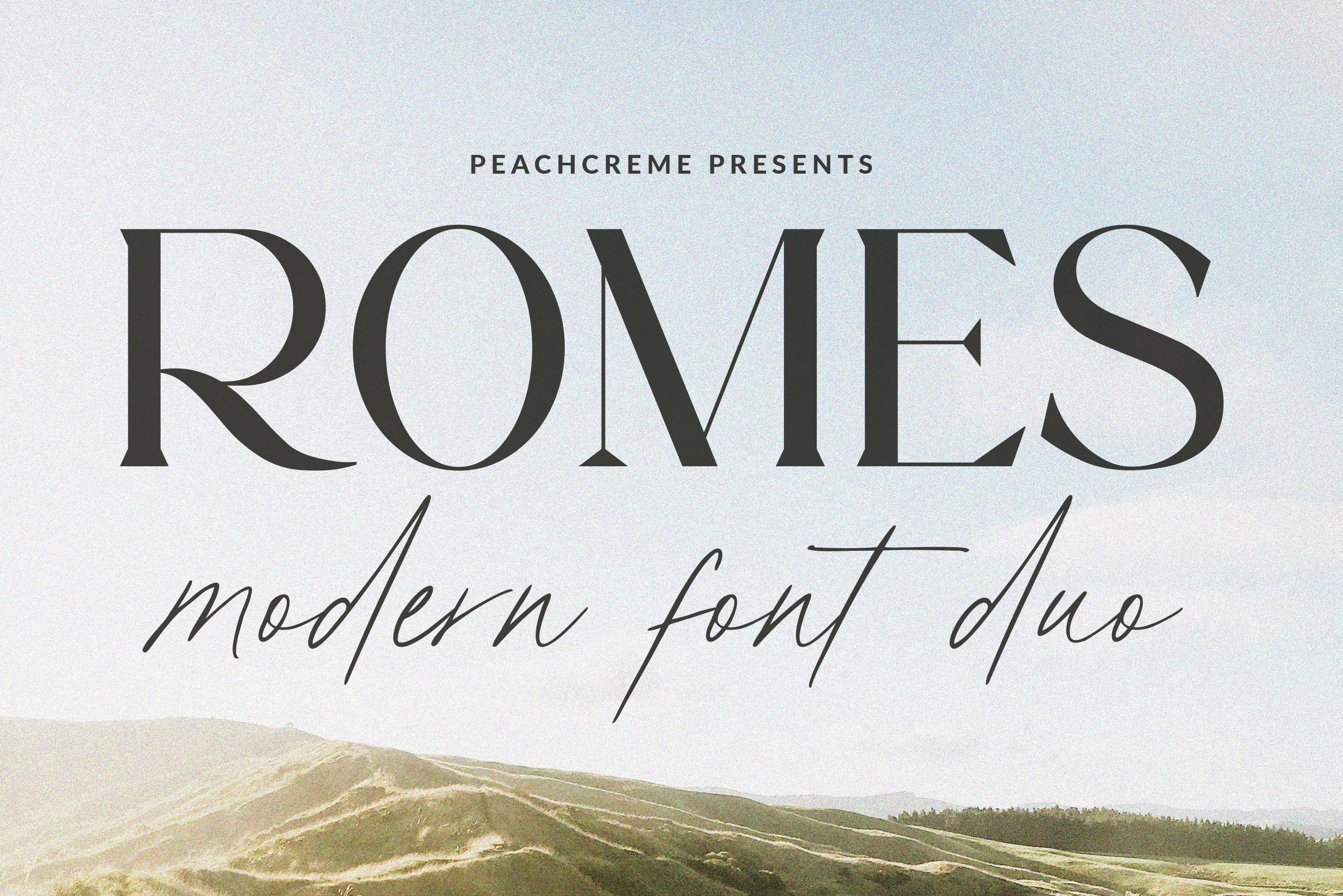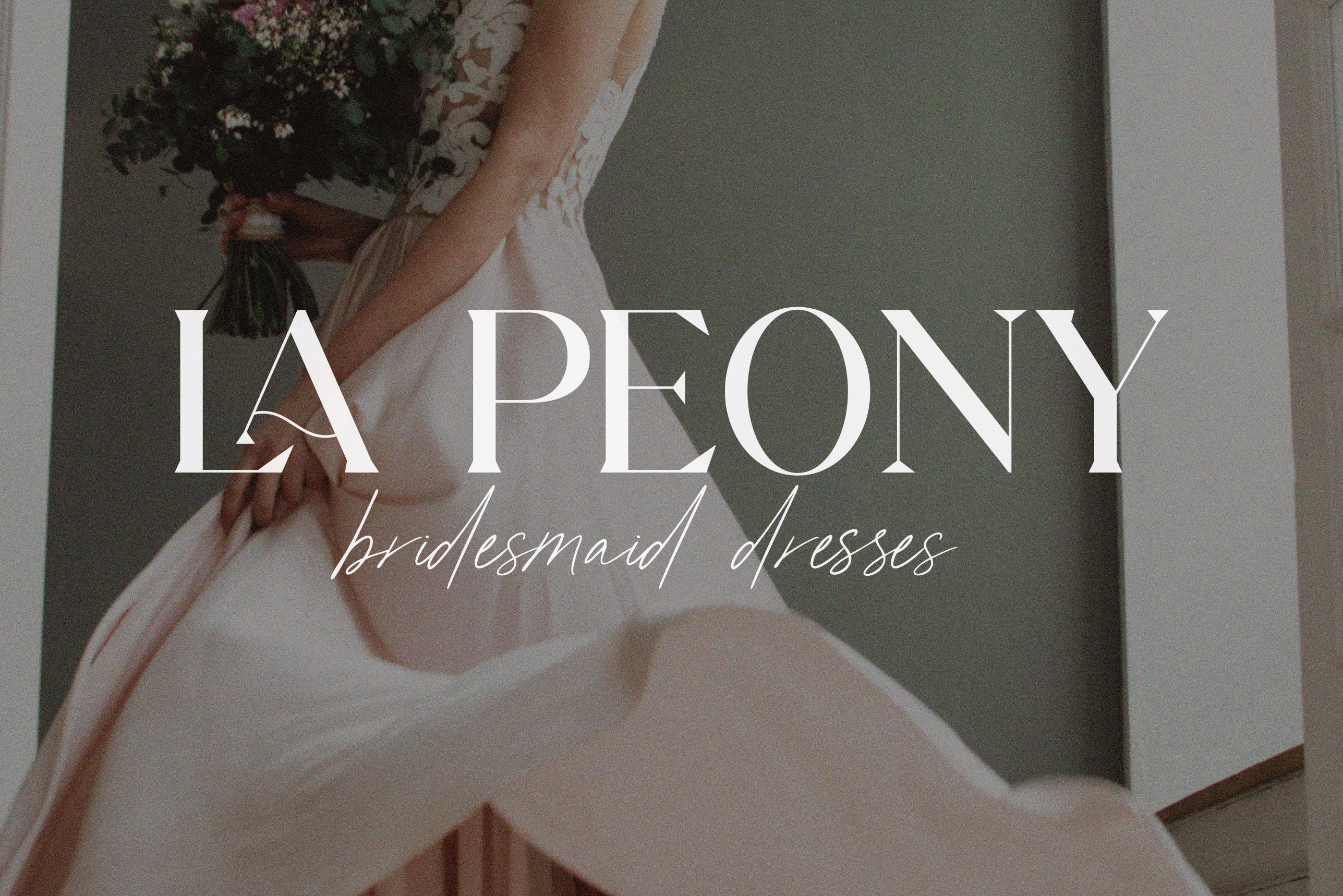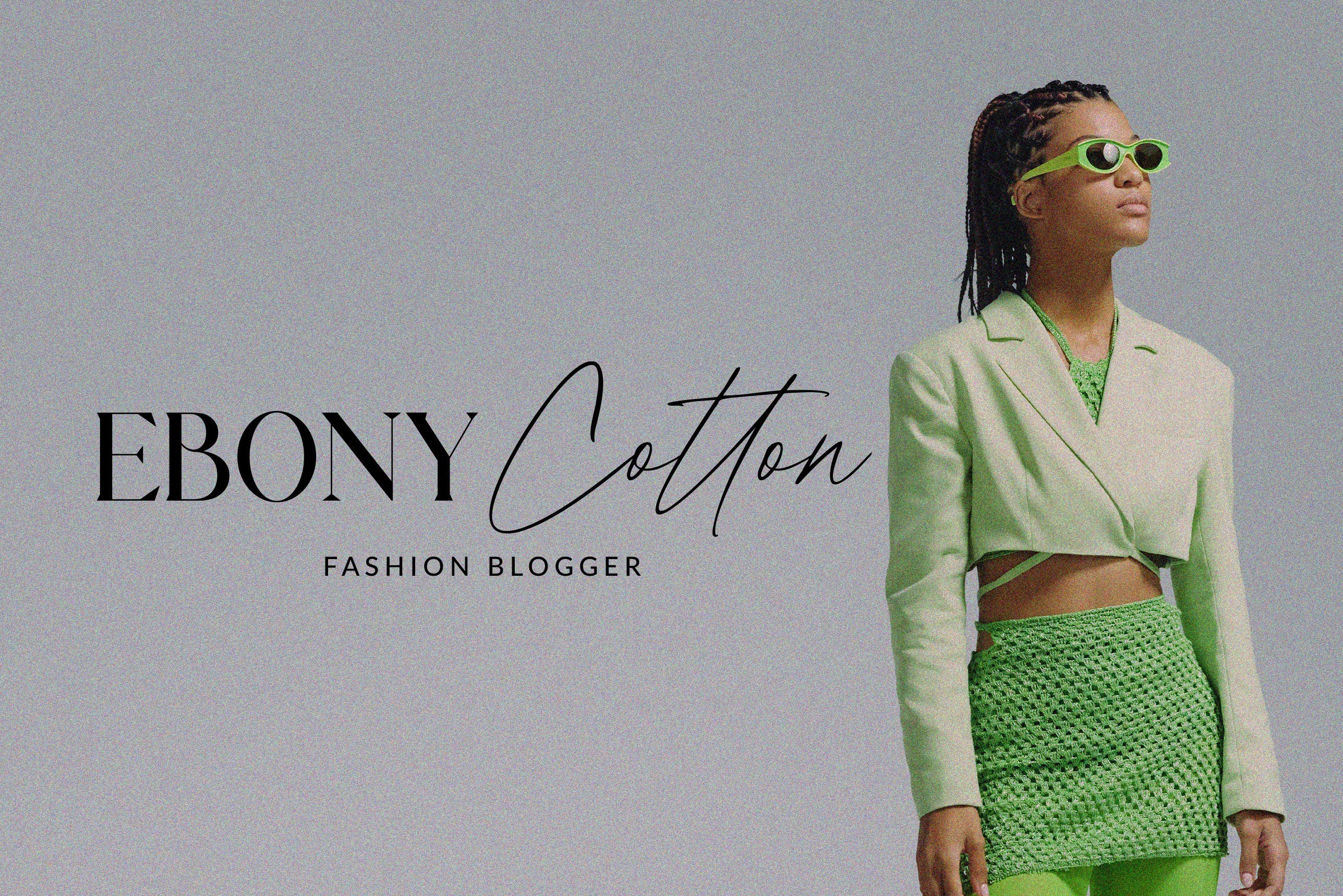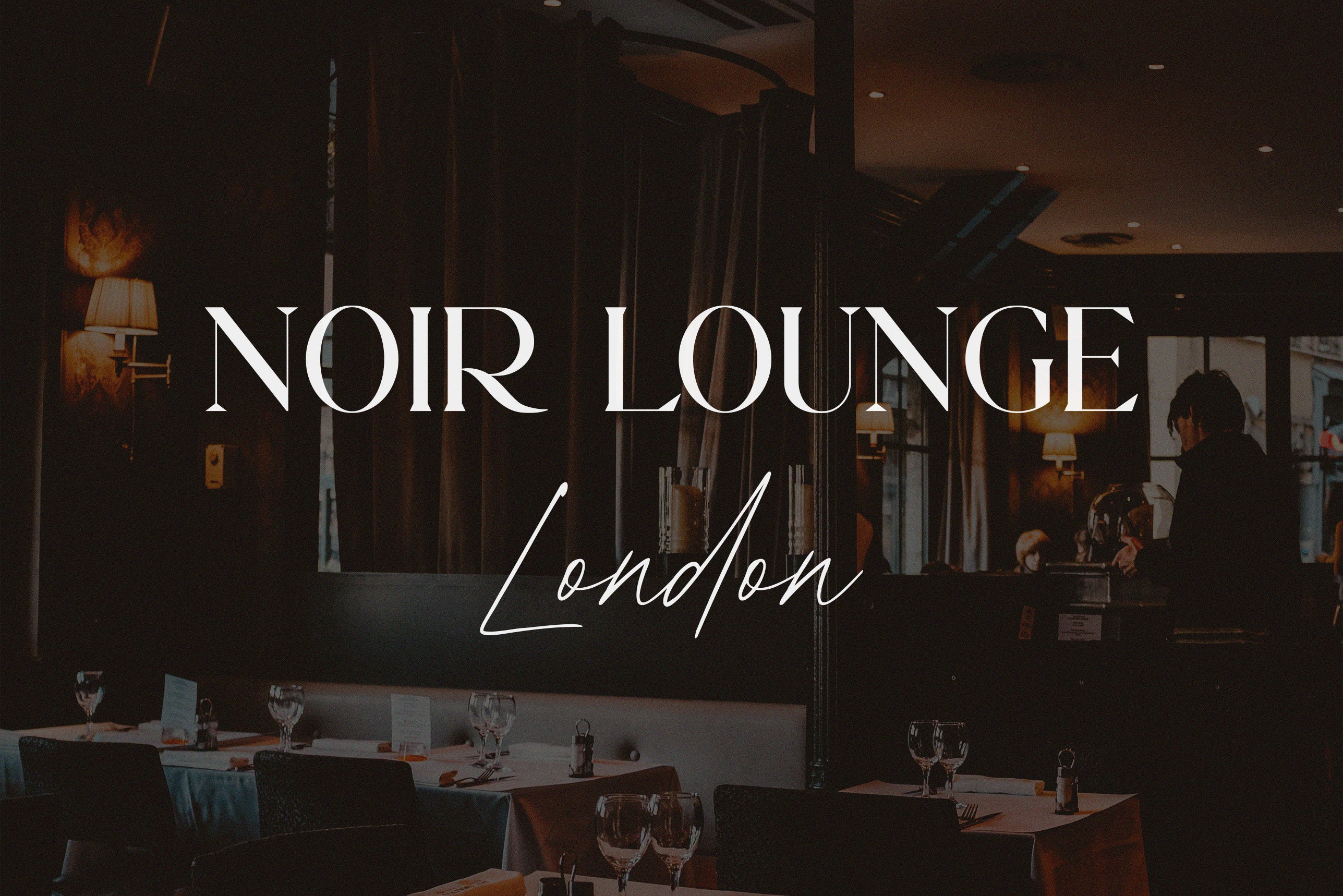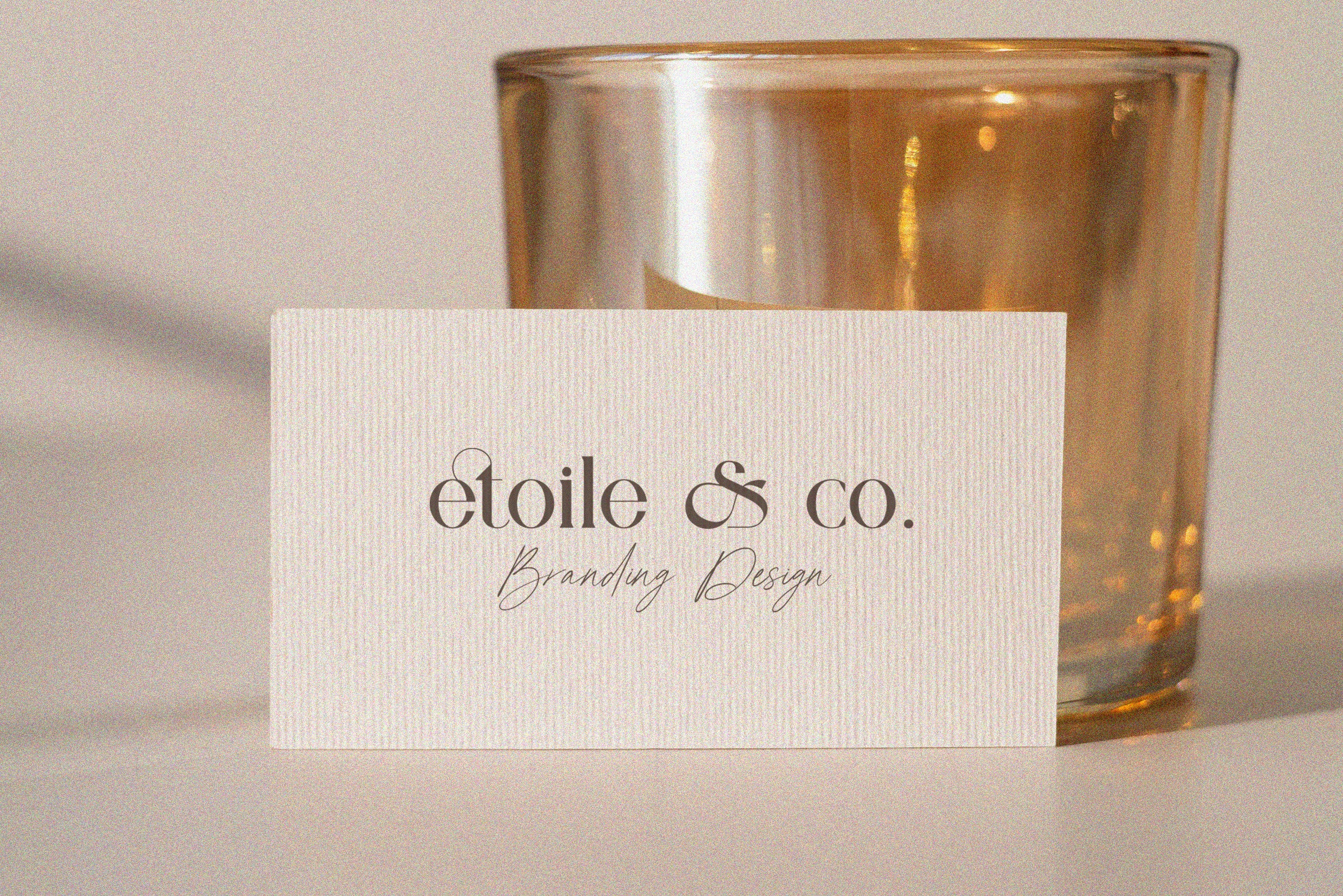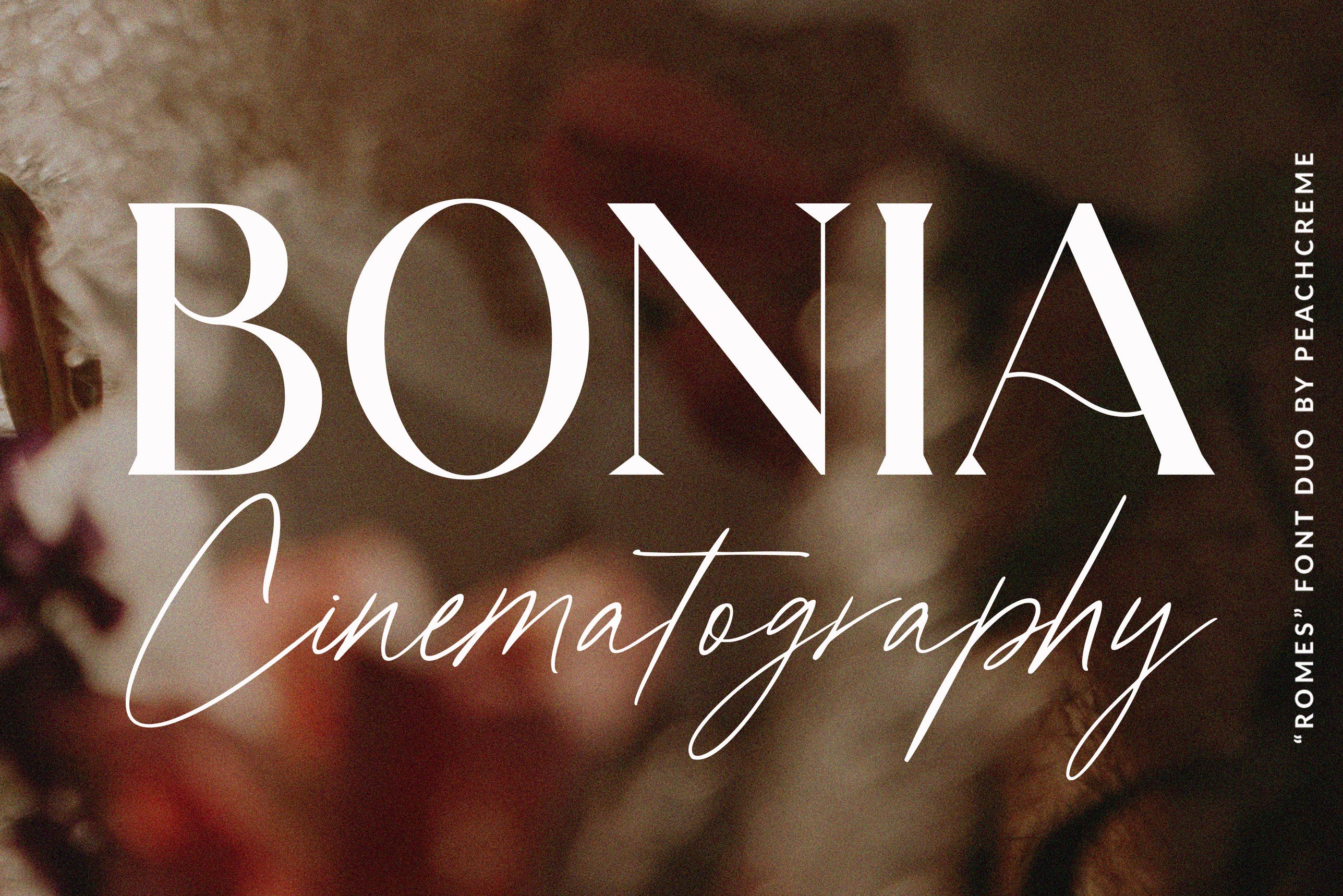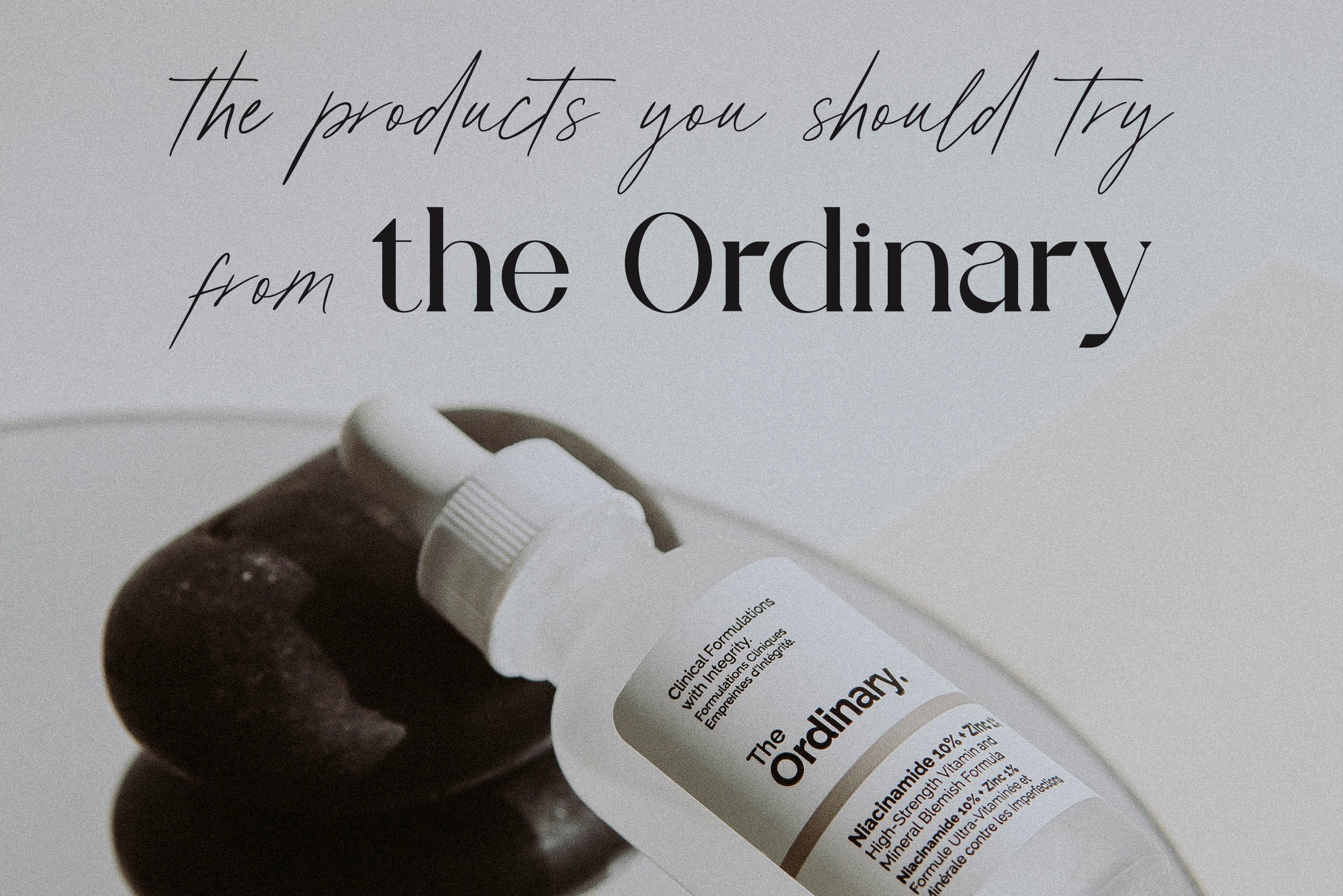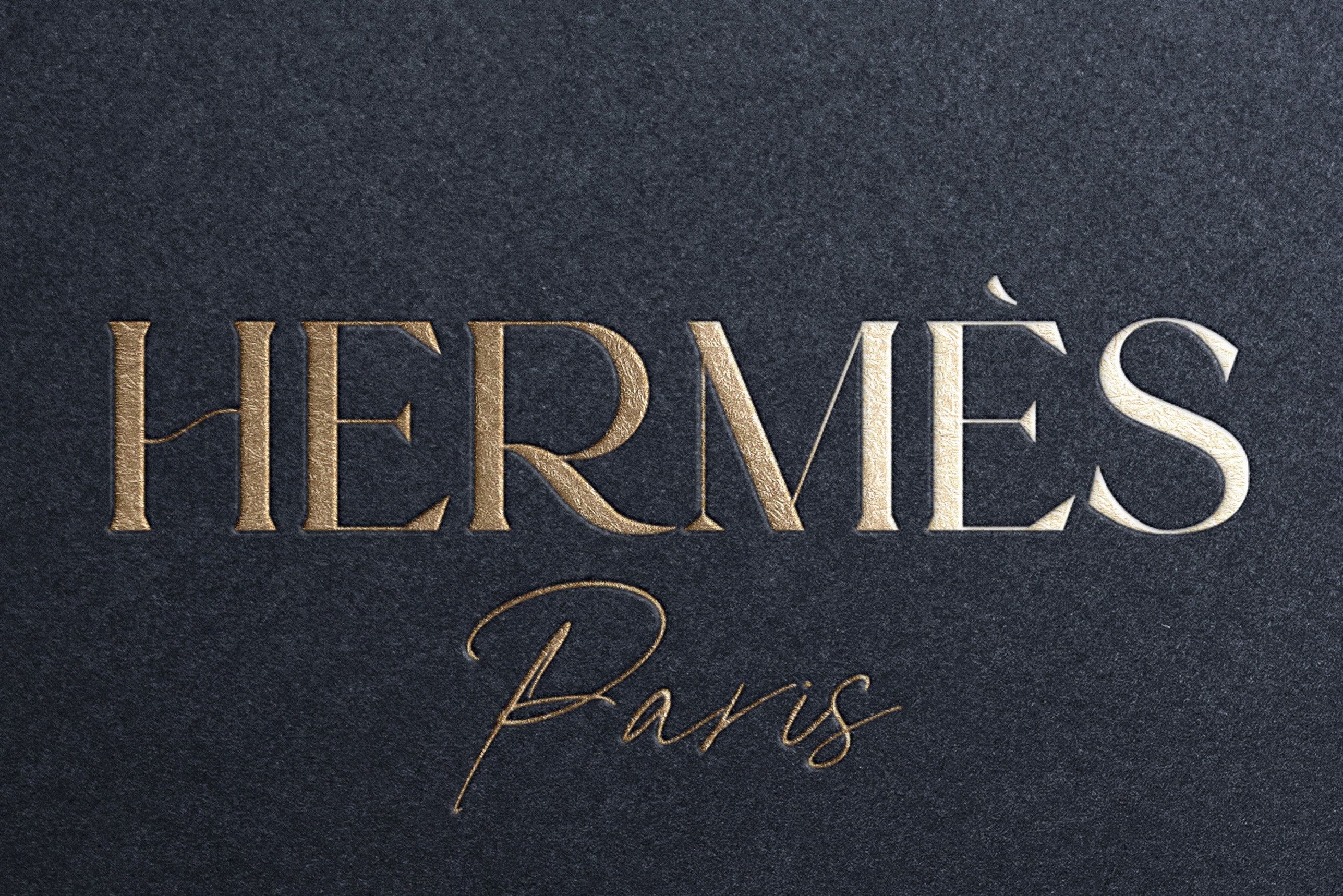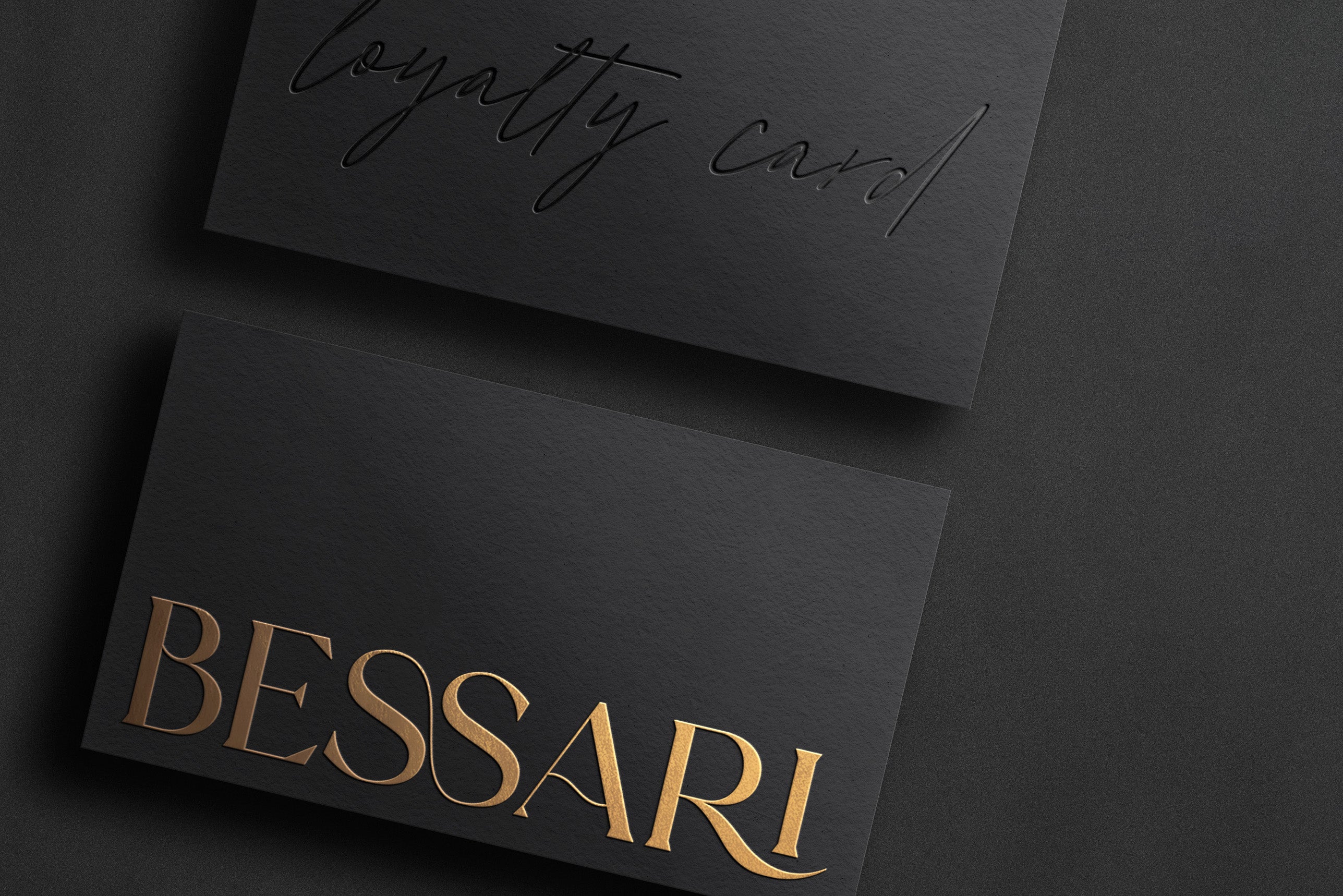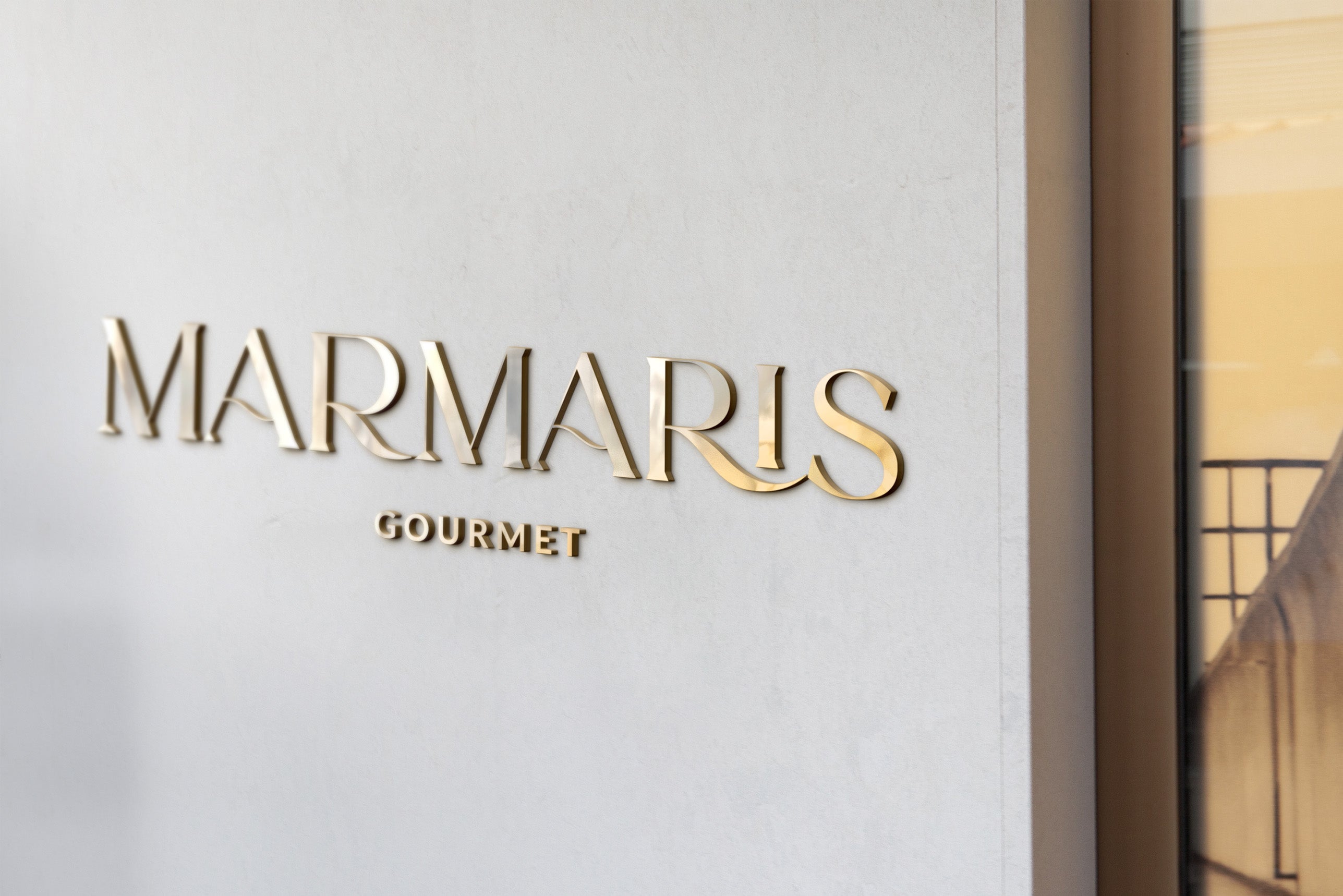
Romes // Modern Font Duo
Hi, peaches! Glad to introduce to you our latest “Romes” font duo that combines classy serif and cute script fonts. The exquisite curves of the serif font and natural beautiful flow of the script font can give your projects a voguish and elegant touch!
Romes Script is a lovely and at the same time clear and easy-to-read handwriting font.
Romes is a moderately bold font that blends traditional influences into a contemporary aesthetic.